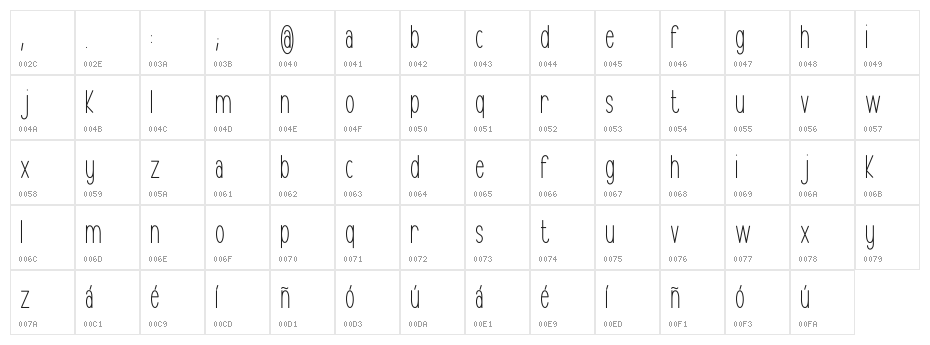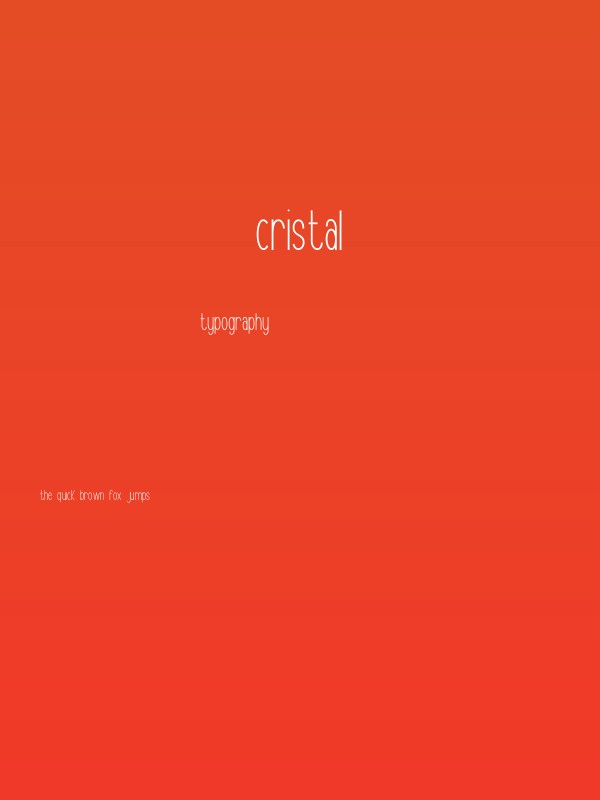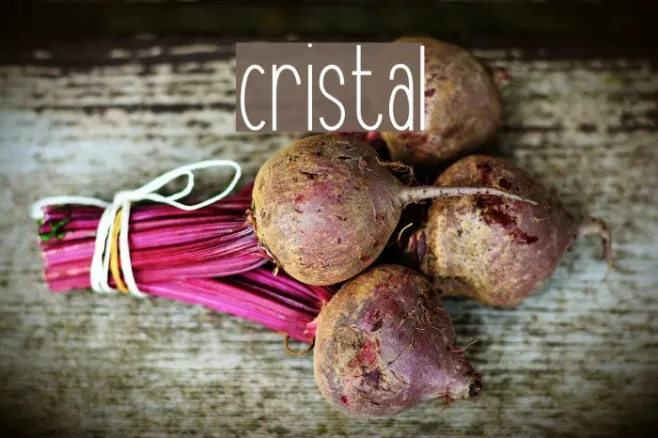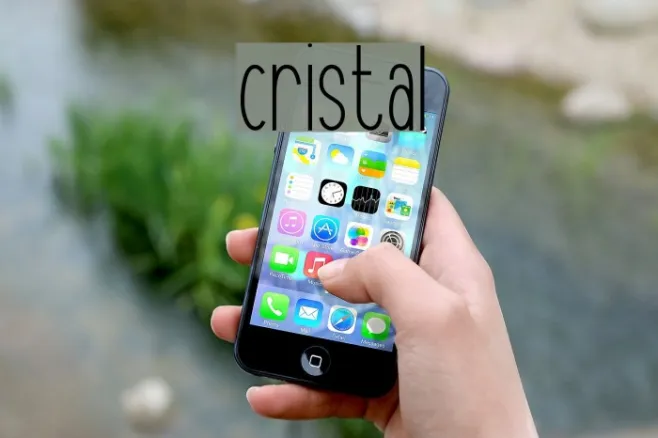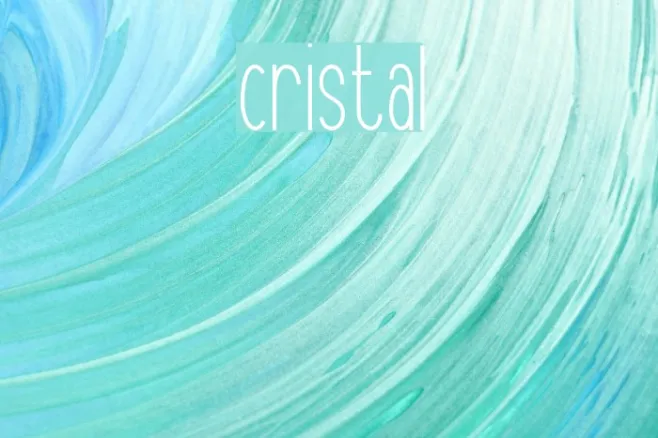
Cristal Font
Cristal Description
This font features a clean and modern design with a sans-serif style. The characters are elongated and have a slightly condensed appearance, giving them a sleek and sophisticated look. The strokes are uniform in thickness, providing a consistent and balanced feel across all letters. The font maintains a minimalistic aesthetic, making it versatile for various design applications. The lowercase letters have a distinctive roundness, while the uppercase letters are more structured, offering a harmonious blend of curves and straight lines. The overall design is elegant and contemporary, suitable for projects that require a modern and professional touch.